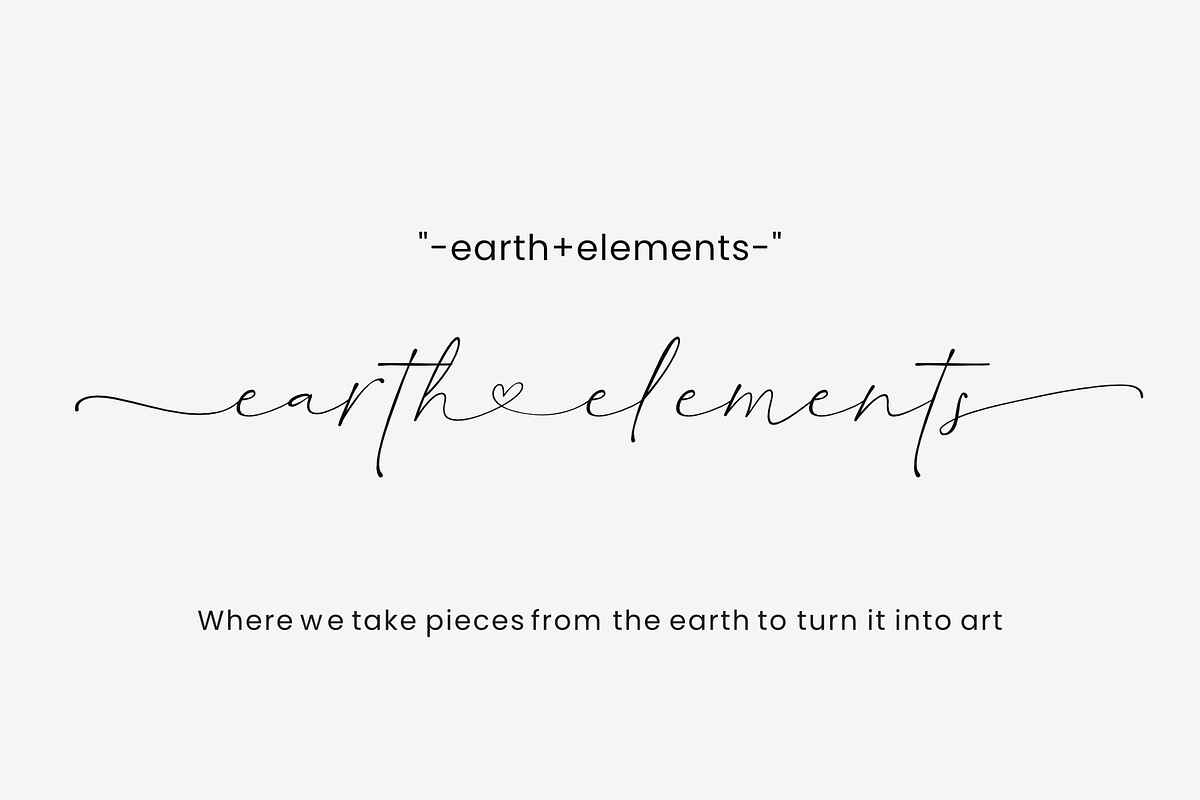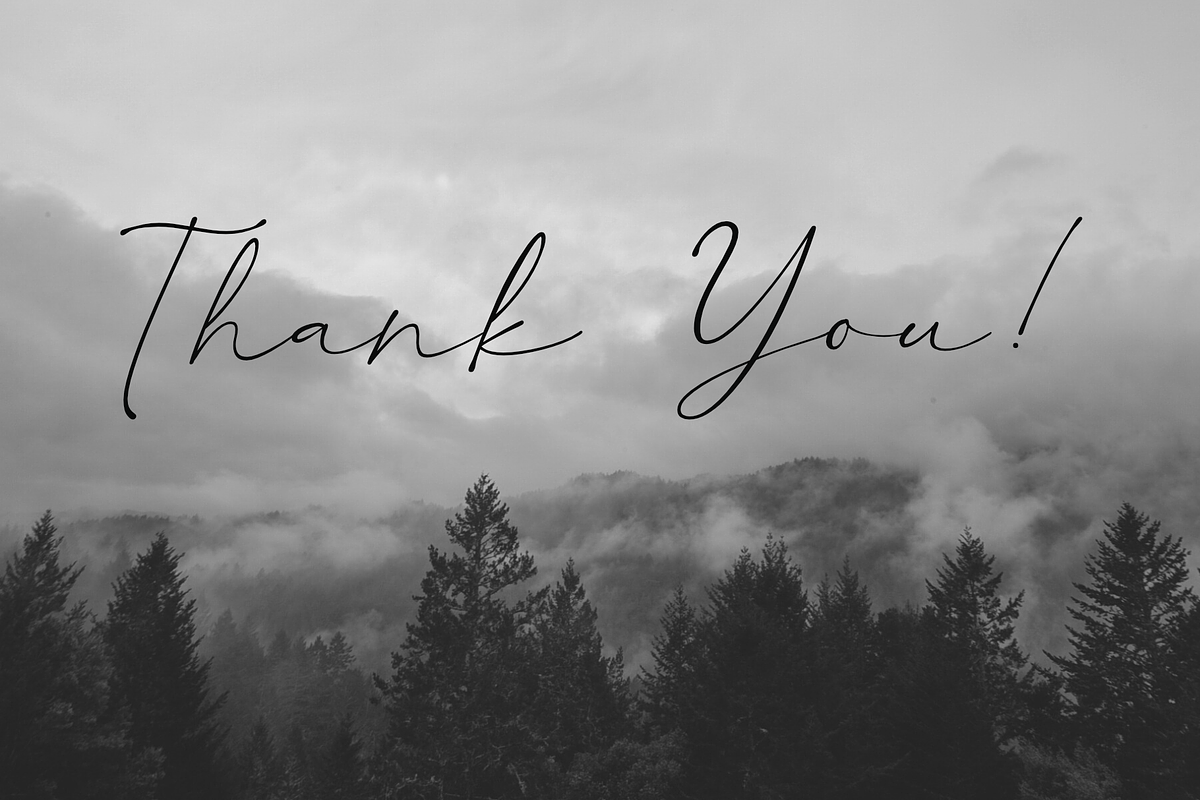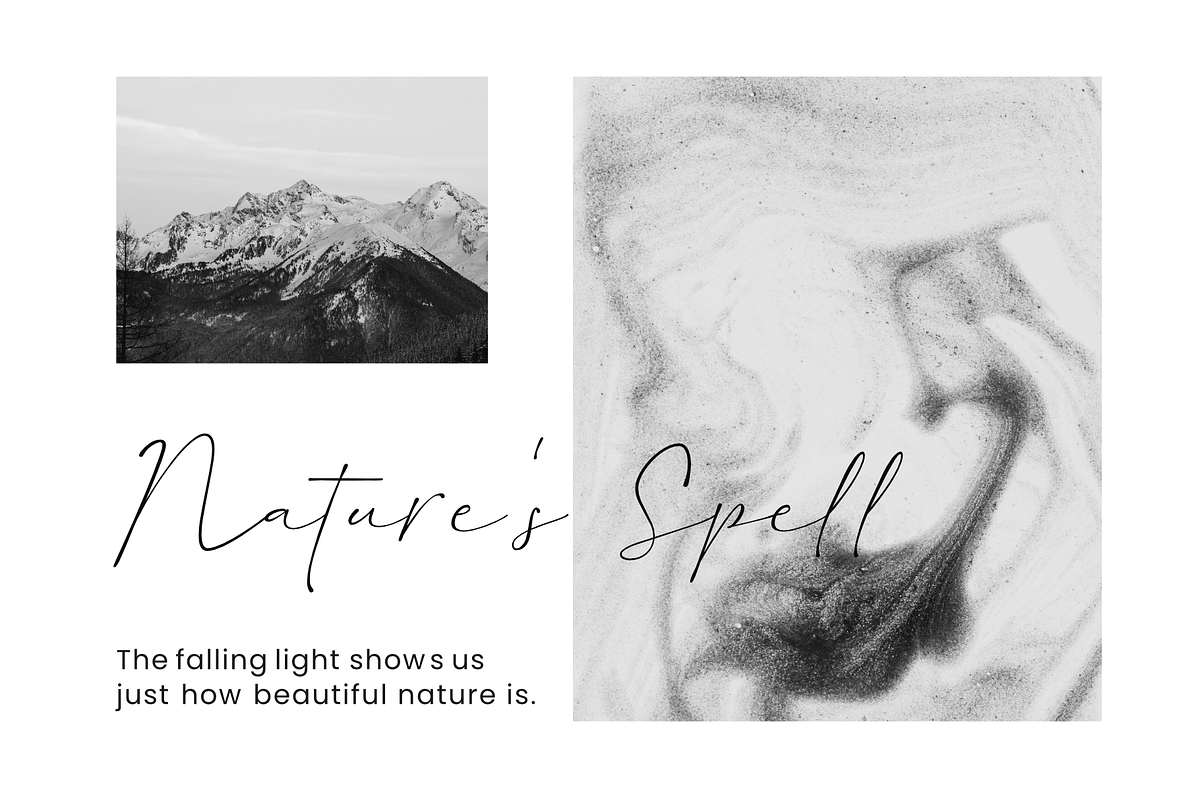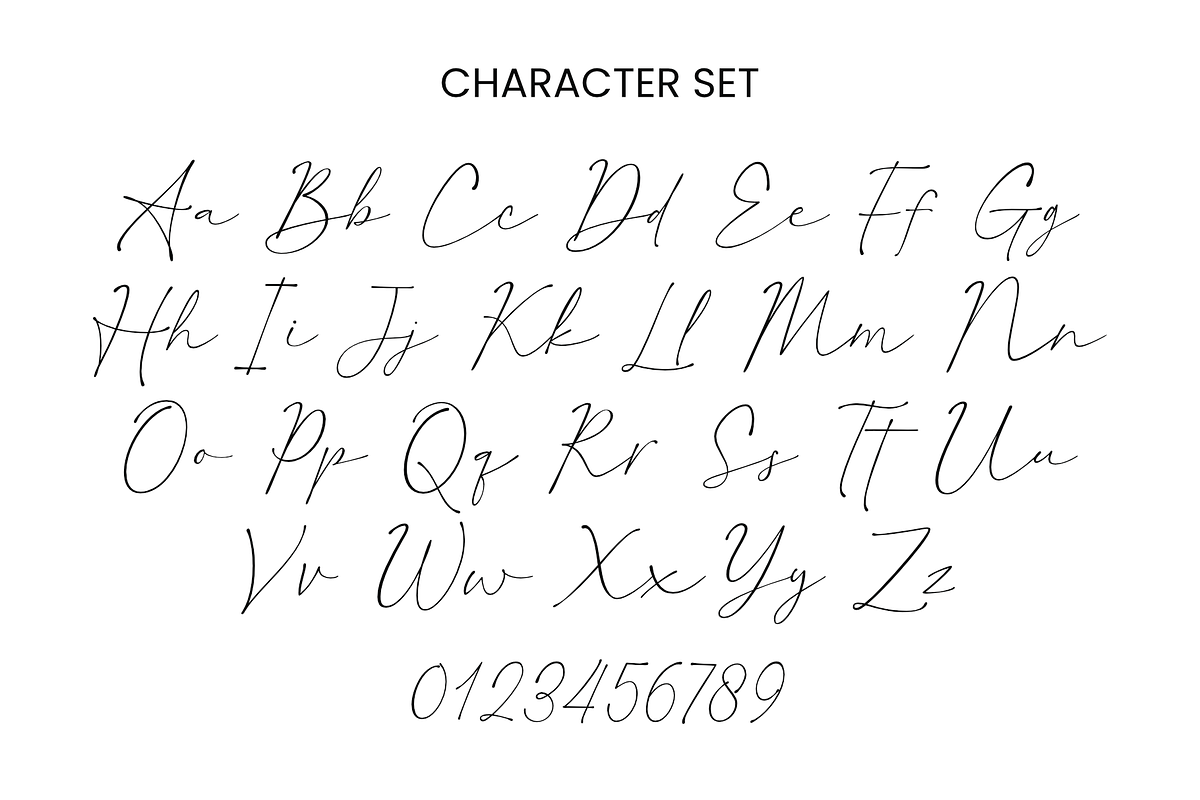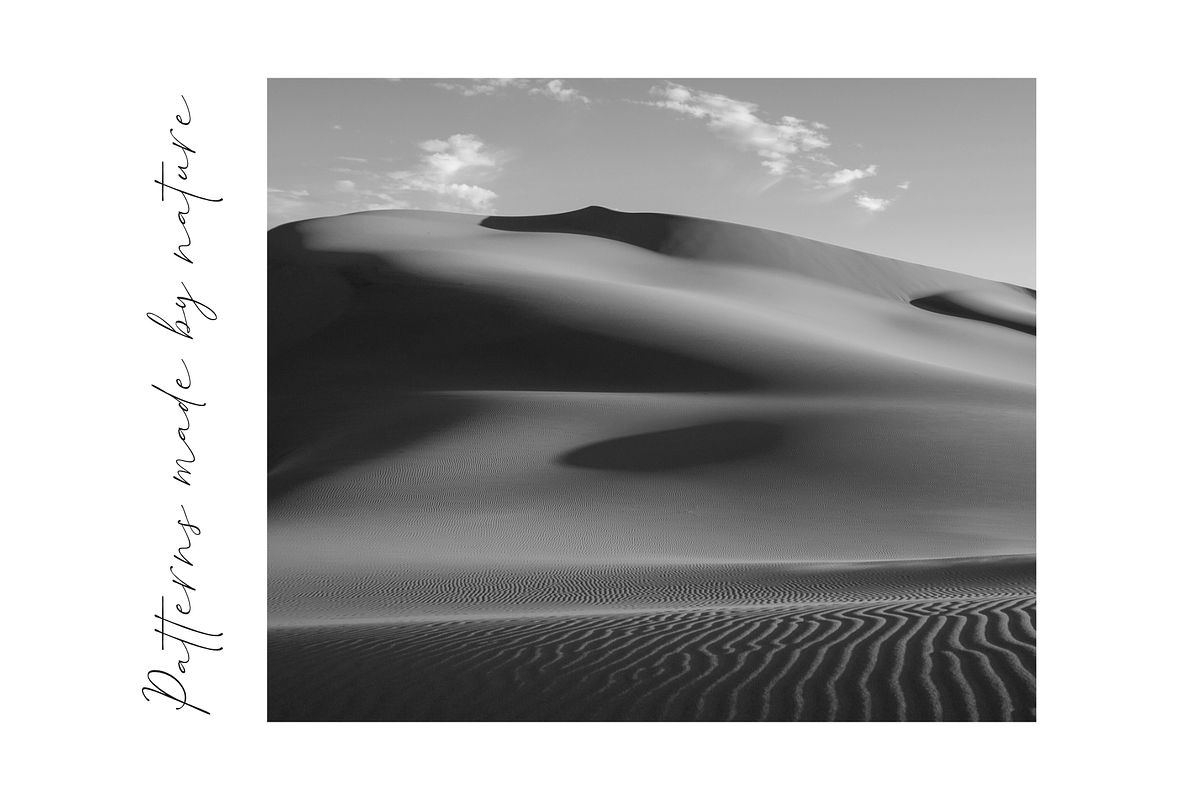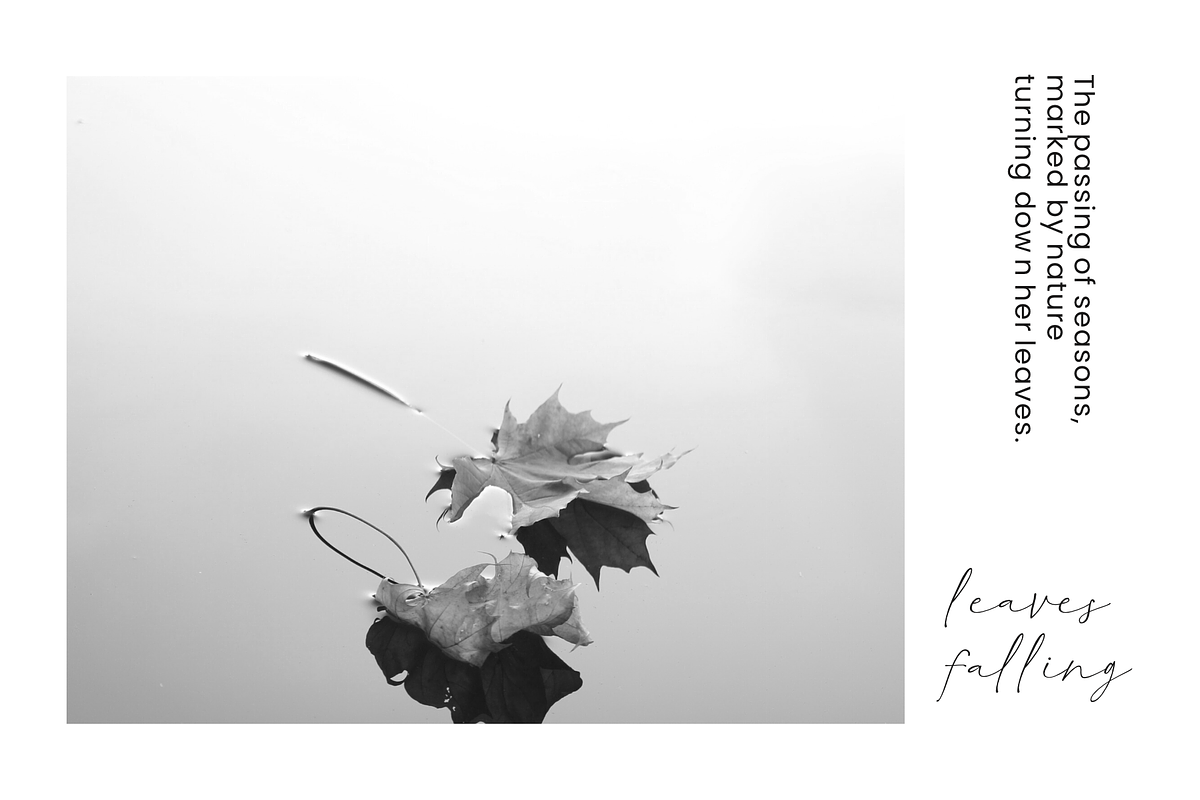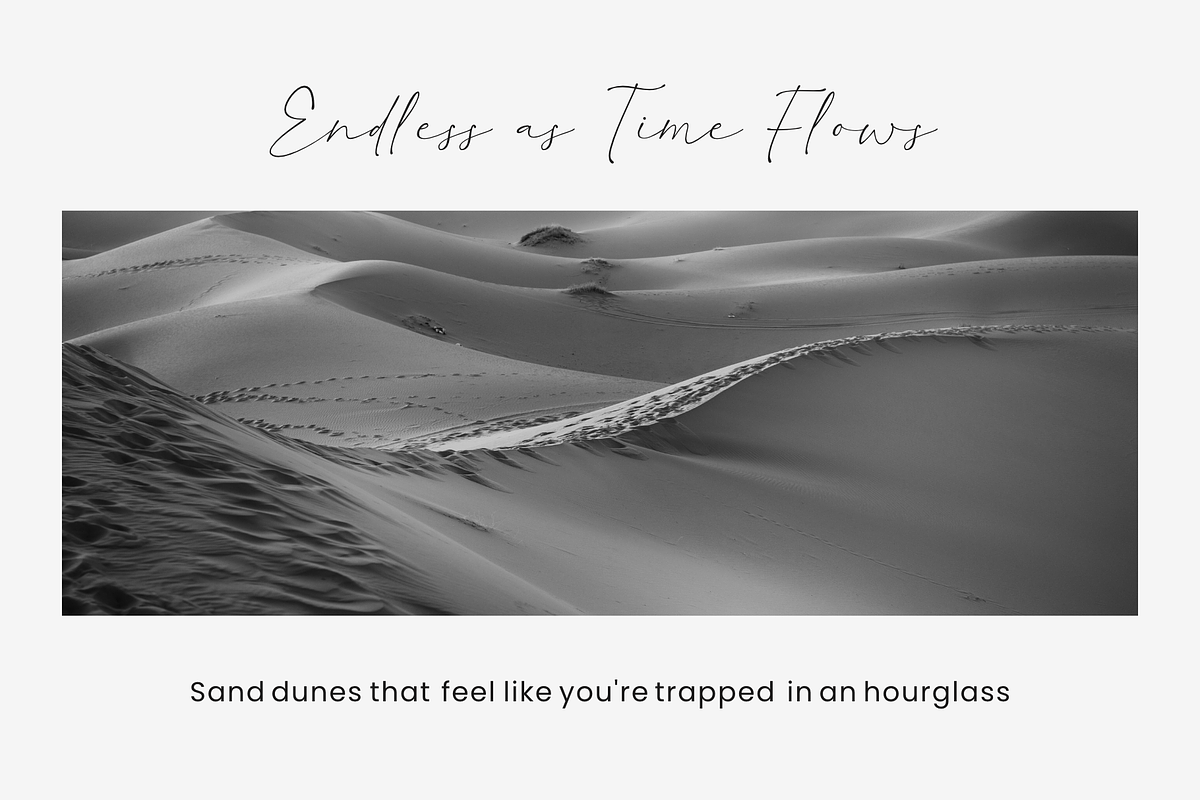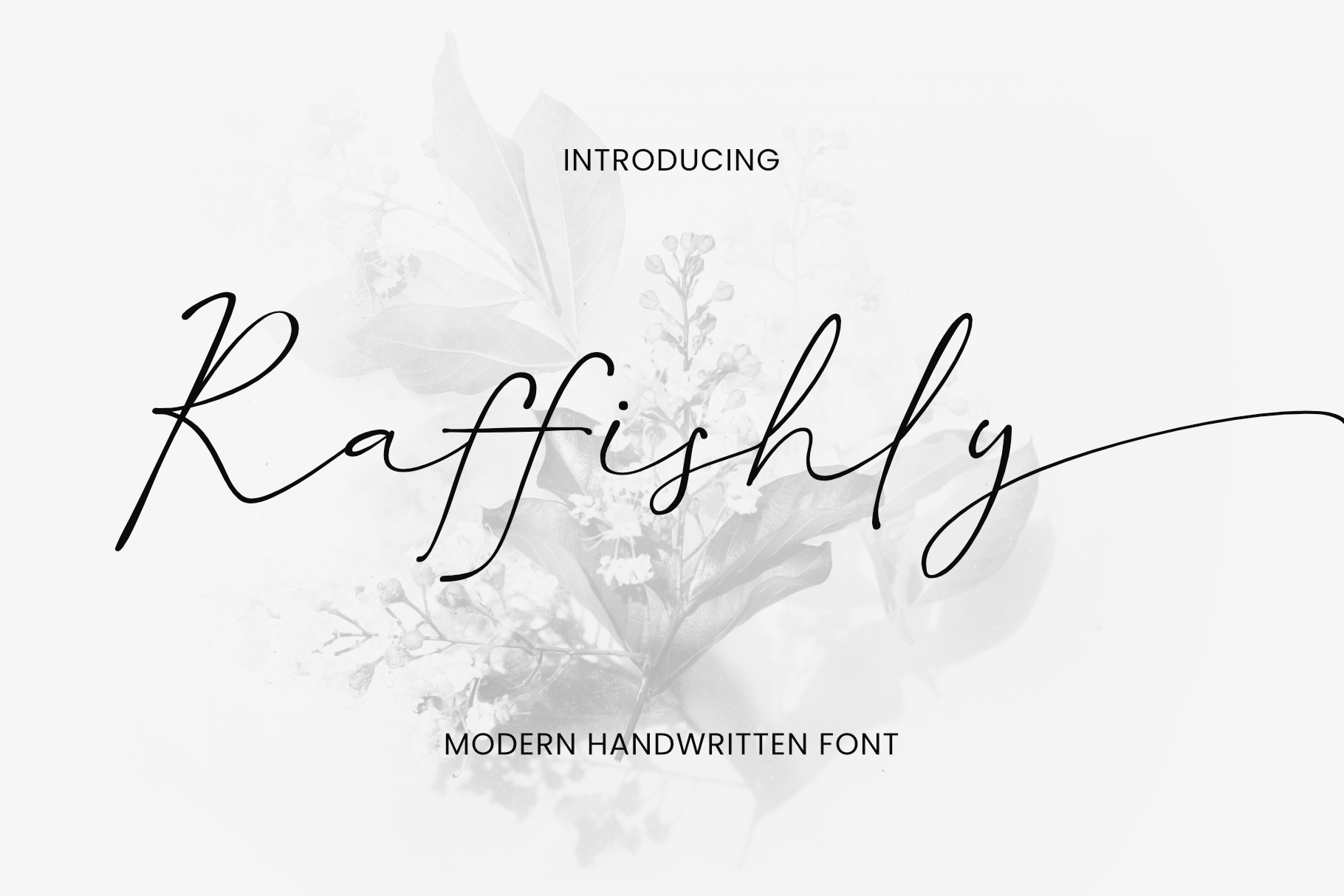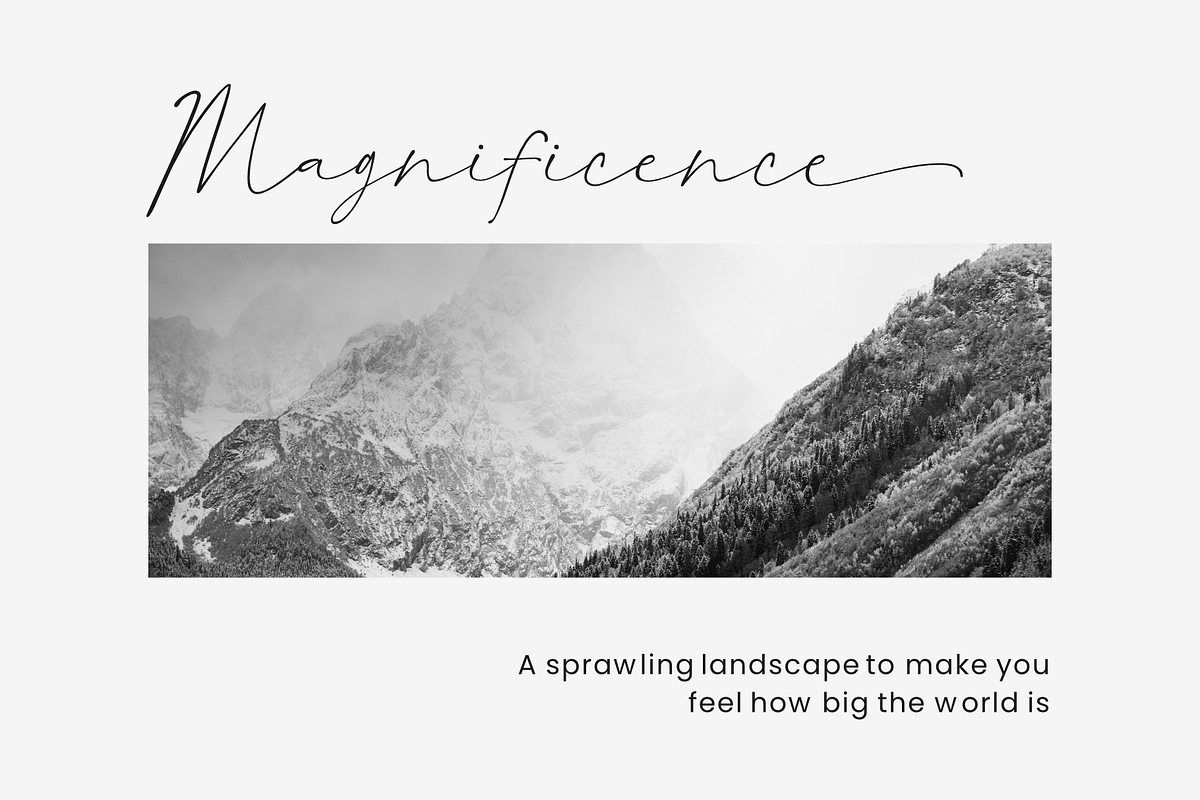
Raffishly - a Modern Script Font
Raffishly is a modern and luxurious handwritten font comes with handwritten swashes. Raffishly has a natural expression, with a casual and elegant impression. This font is perfect for wedding invitations, branding, quotes, posters, banners, flyers, photography, fashion, and much more.